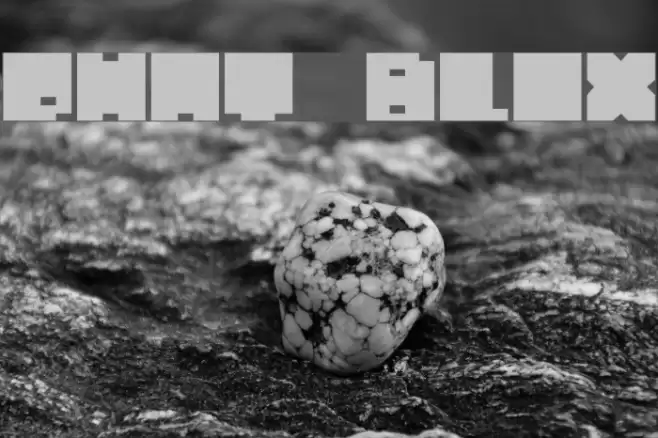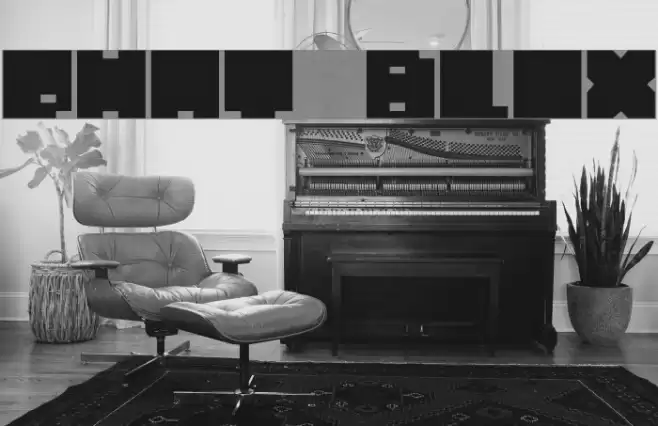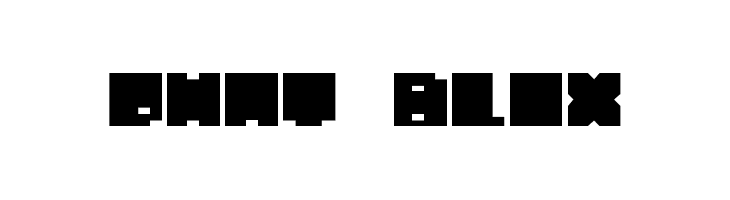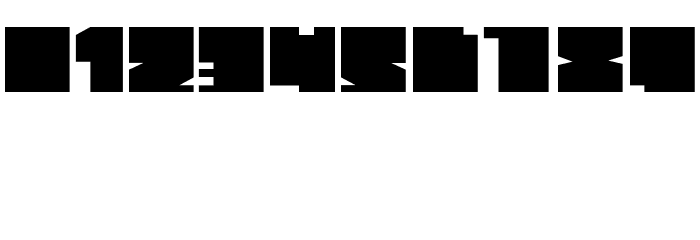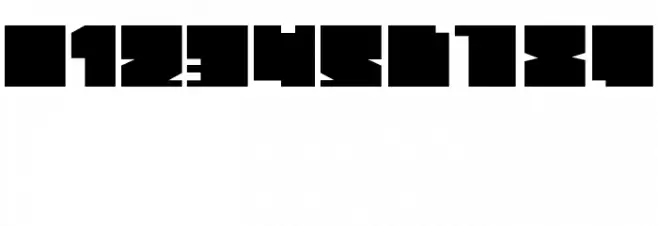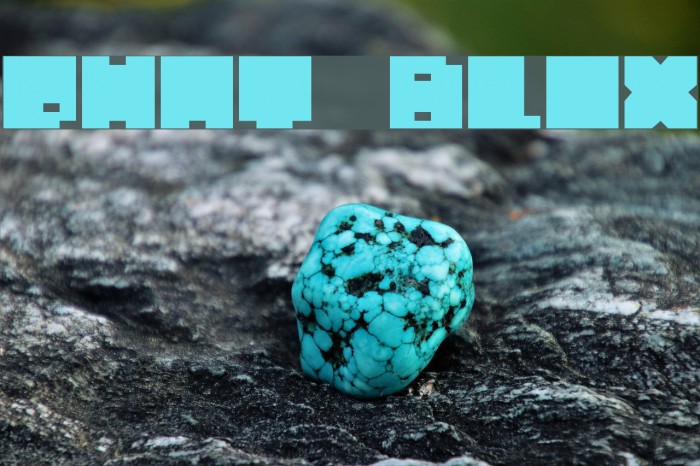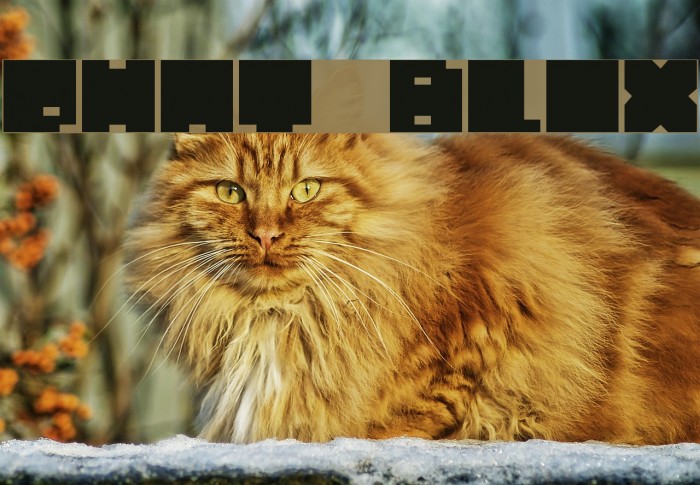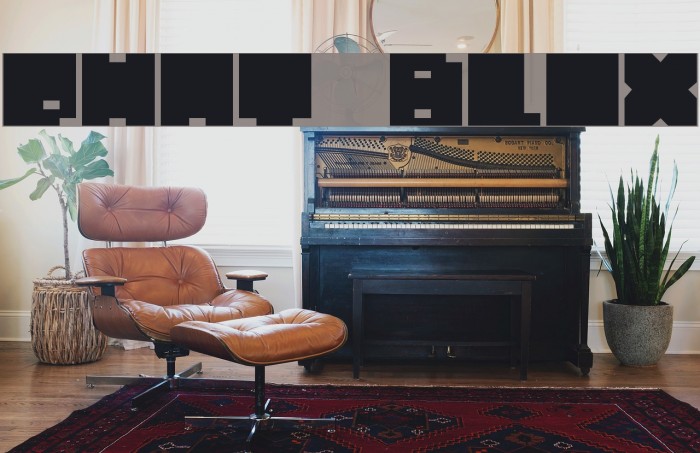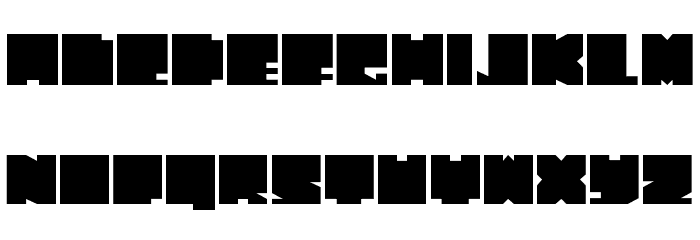
Phat Blox Font
Phat Blox Description
This font features a bold, blocky design with a strong geometric influence. Each character is constructed with thick, uniform strokes, creating a sense of solidity and impact. The angular edges and sharp corners give it a modern and edgy appearance, making it stand out in any design. The uppercase and lowercase letters maintain a consistent style, while the numerals and special characters follow the same robust structure. This font is ideal for projects that require a strong visual presence.
- Proposed Projects: Ideal for posters, headlines, logos, and branding materials that need a strong visual impact.